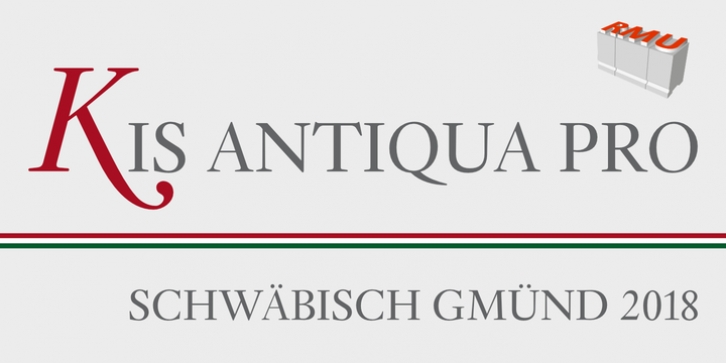
These Typoart fonts were redesigned and revived for modern use. The italic style got an entire set of swash caps, and both styles contain superior and inferior numerals as well as the historical long s.